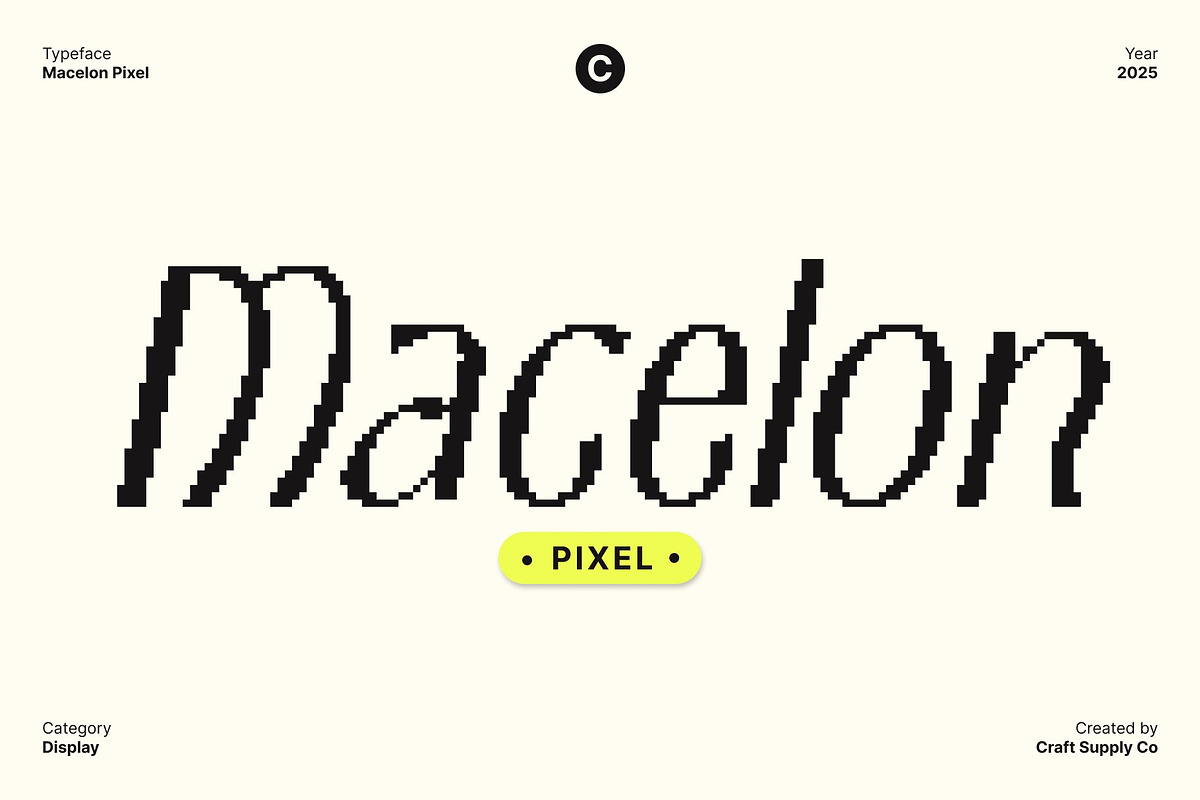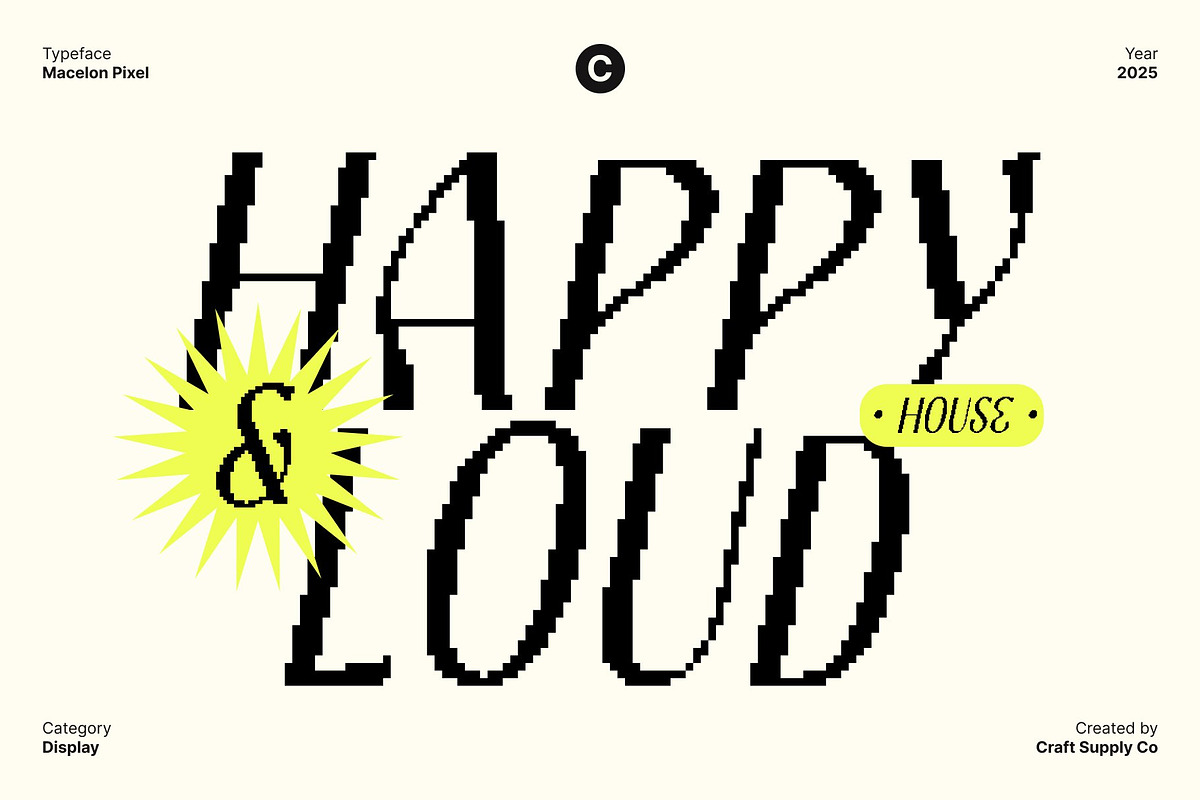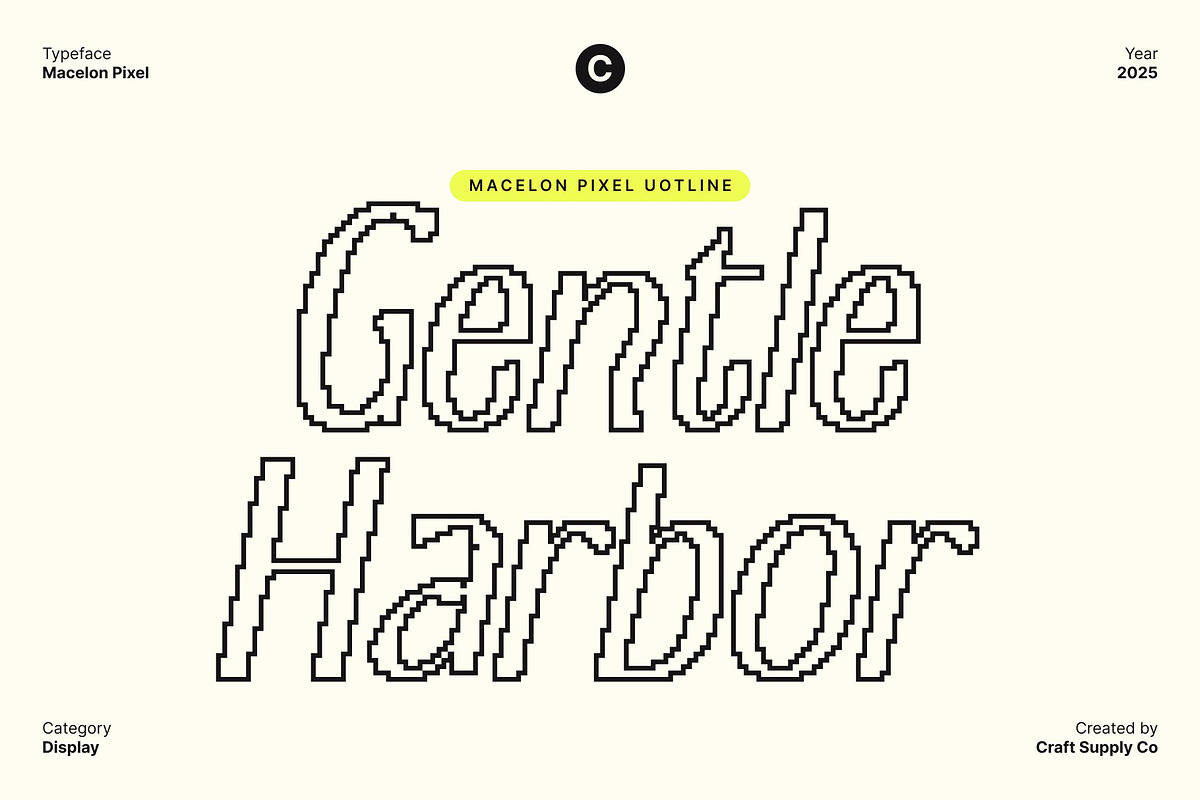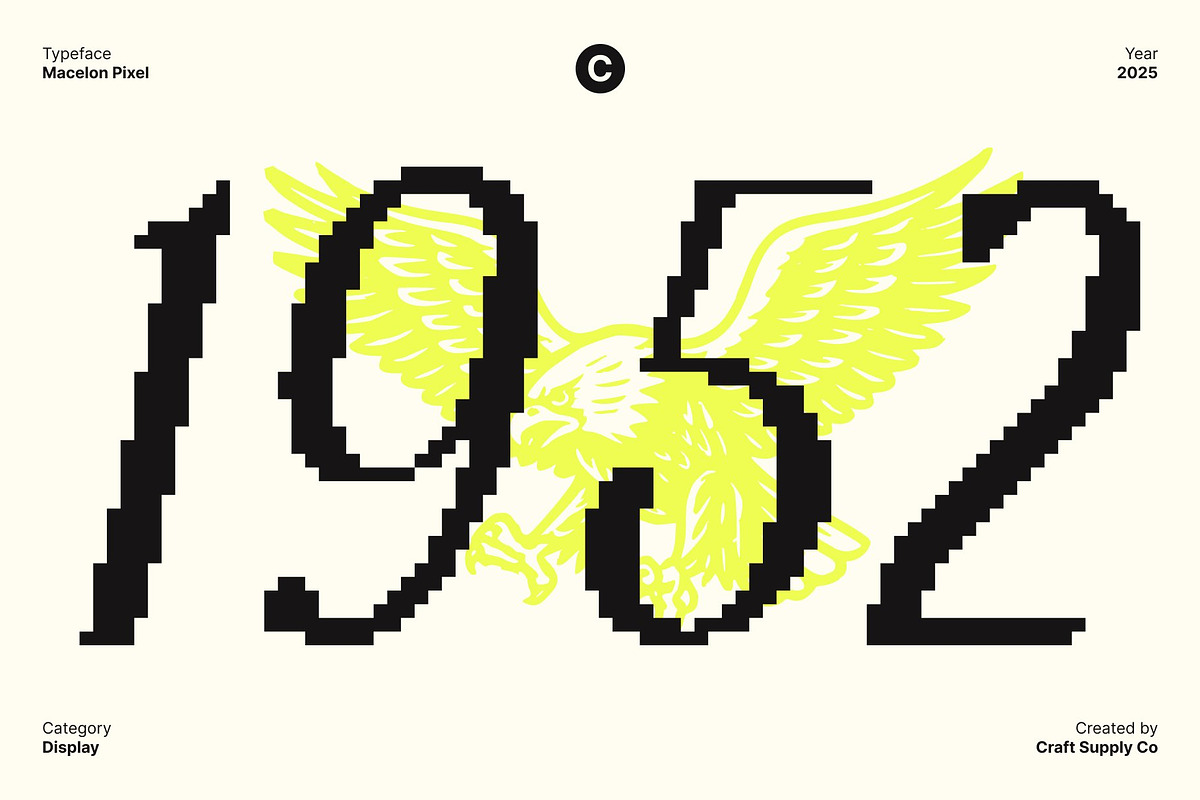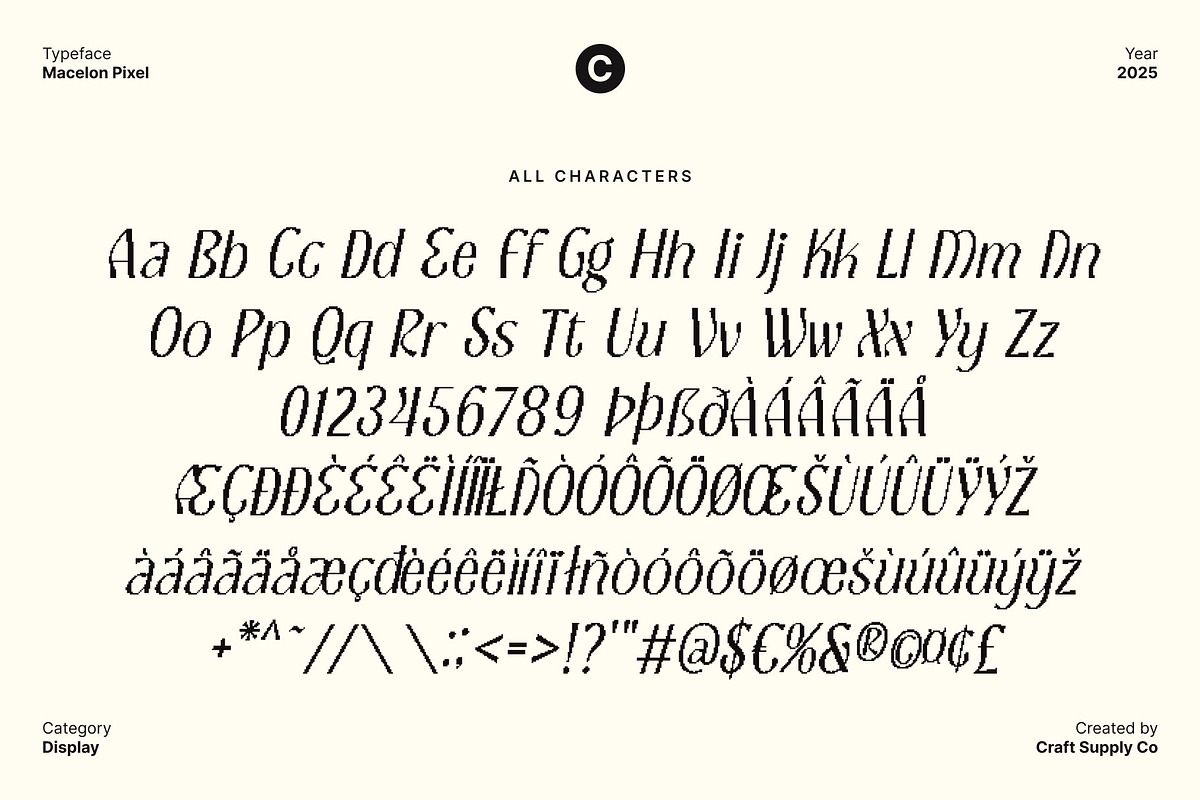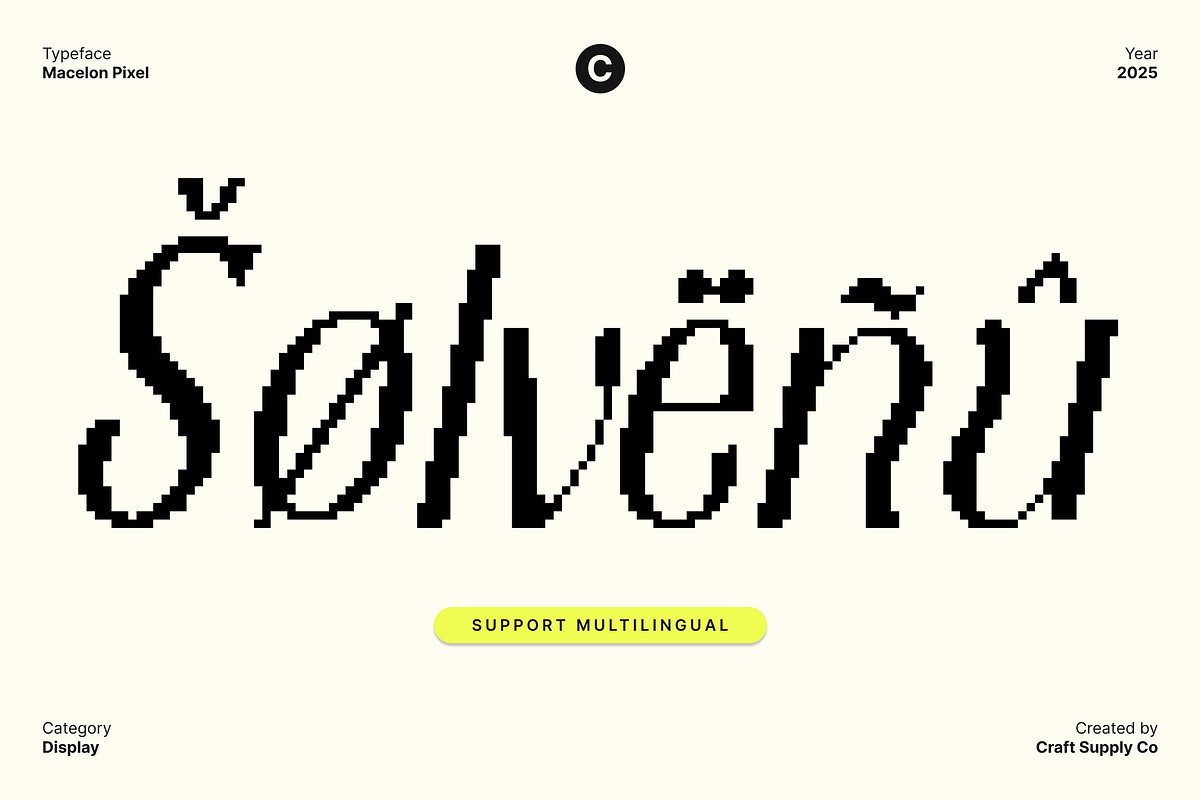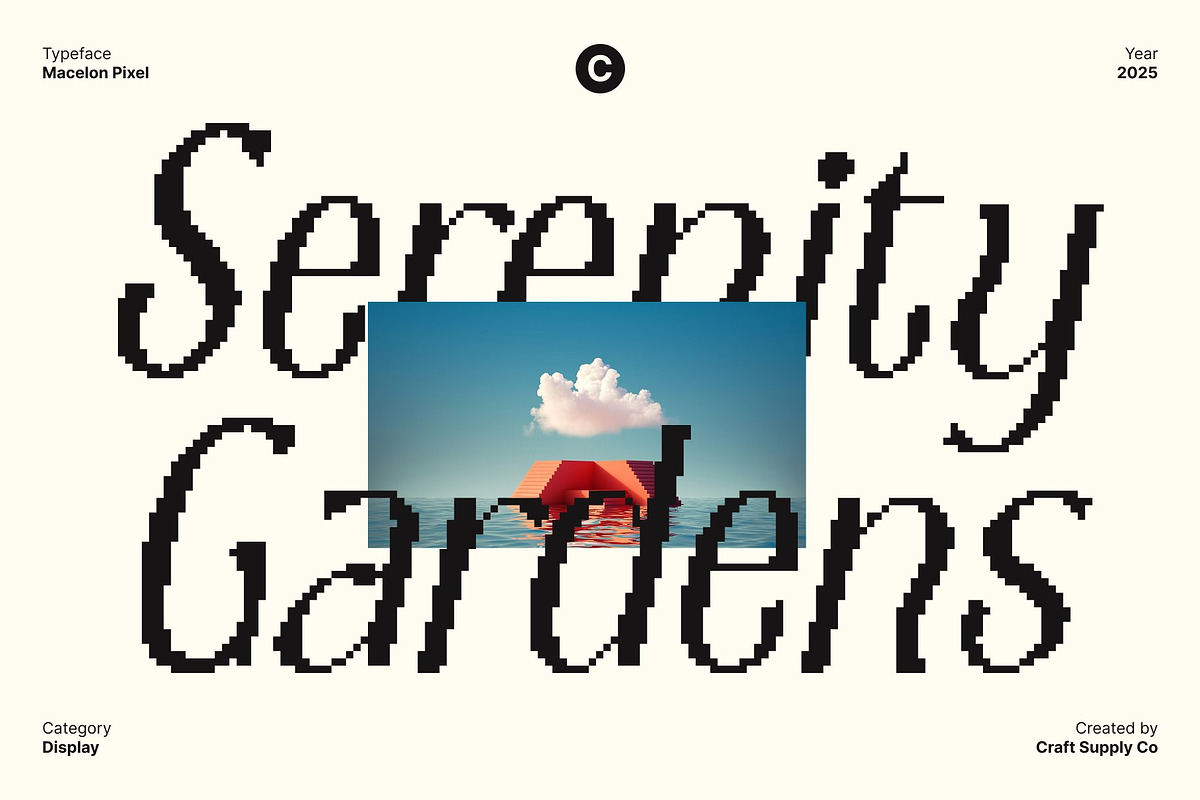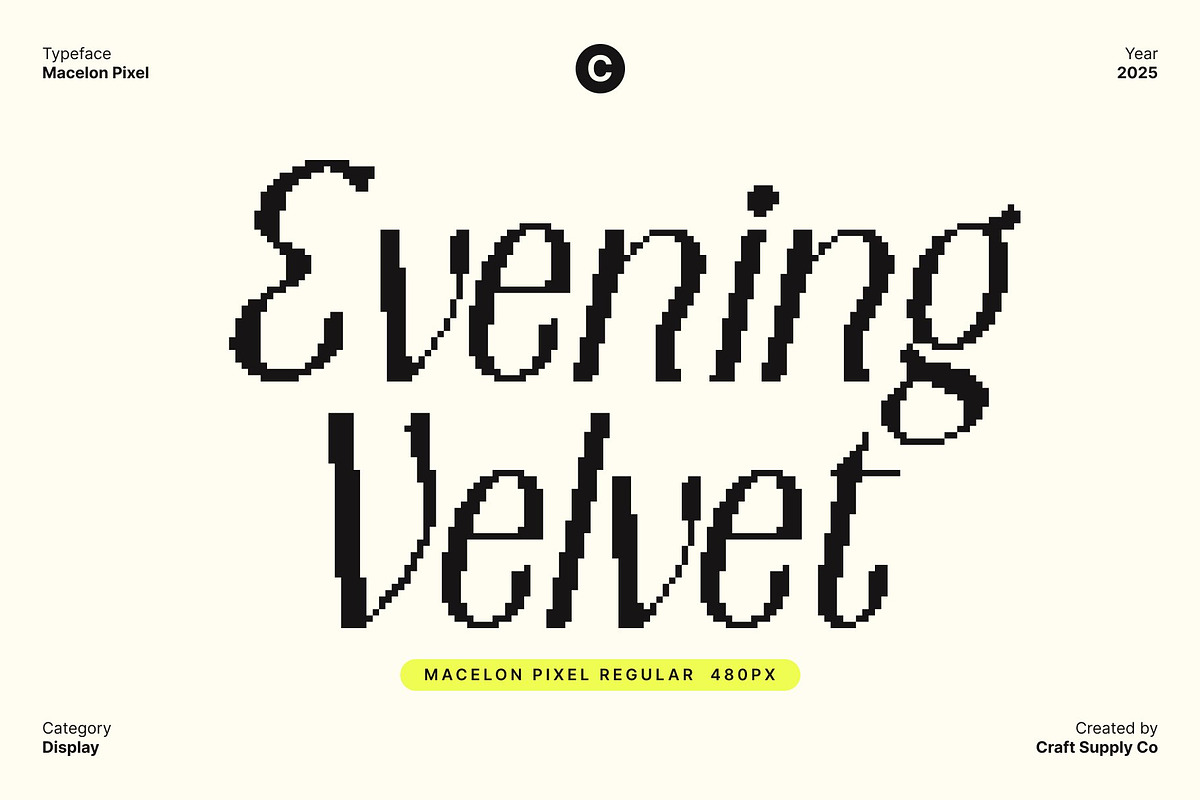
Macelon Pixel
Macelon Pixel – Modern Sans Serif with Art Nouveau Elegance and 8-Bit Pixel Style
Art Nouveau Elegance with Modern Simplicity This is a modern sans serif display font infused with graceful Art Nouveau influences. Its clean, flowing lines and contemporary shapes create a trendy, elegant, and captivating look perfect for designers who want a touch of classic charm blended with modern refinement.
8-Bit Pixel Structure for a Unique Digital Twist Enhanced with an 8-bit pixel structure, this font adds a fresh digital personality to its Art Nouveau curves. This pixel effect introduces a retro-tech aesthetic that complements its elegant form, making the font stand out in modern layouts, digital projects, and pixel-art-inspired visuals.
Stylish, Refined, and Visually Striking The balance between smooth Art Nouveau curves and crisp modern geometry gives Macelon Pixel a distinctive visual identity. Every character feels stylish and refined, making it ideal for titles, logos, branding, and display designs that aim to be both expressive and sophisticated.
Perfect for Modern Branding, Pixel Art, and Creative Design Whether you’re designing stylish branding, crafting editorial layouts, or creating pixel-art-inspired visuals, this font delivers versatility and eye-catching appeal. Its fusion of vintage elegance and digital 8-bit texture makes it a standout choice for modern creative projects that want beauty, uniqueness, and strong visual character.